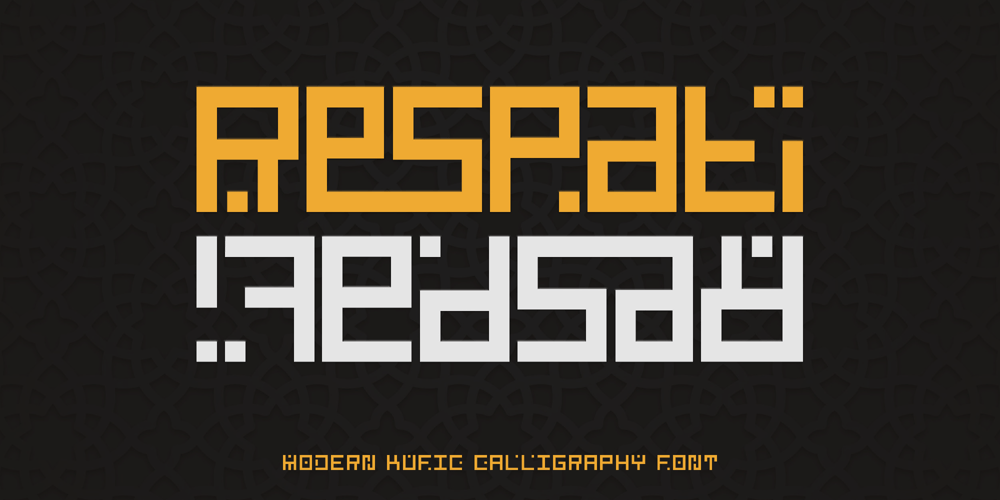
Respati Font Family was designed by Achmad Yani and published by Flawlessandco. Respati contains 1 styles and family package options. Introducing Respati: A Modern Kufic Calligraphy Font. Respati is an exquisite and captivating typeface that beautifully merges the timeless elegance of Kufic calligraphy with a modern twist. With its distinct and sophisticated design, Respati is the perfect choice for adding a touch of refinement to your projects.There’s some connected letters and some alternates that suitable for any graphic designs such as branding materials, t-shirt, print, business cards, logo, poster, t-shirt, photography, quotes .etcThis font support for some multilingual. Also contains uppercase A-Z and lowercase a-z, alternate character, numbers 0-9, and some punctuation.If you need help, just write me! Thanks so much for checking out my shop!